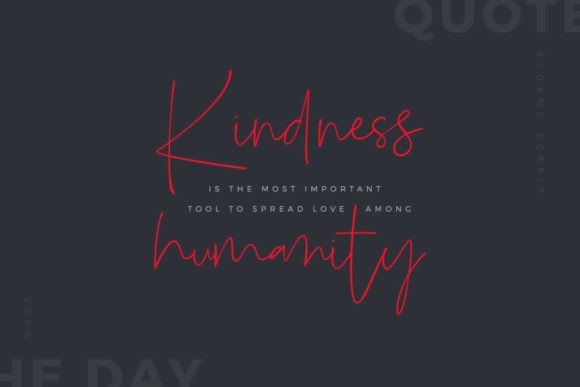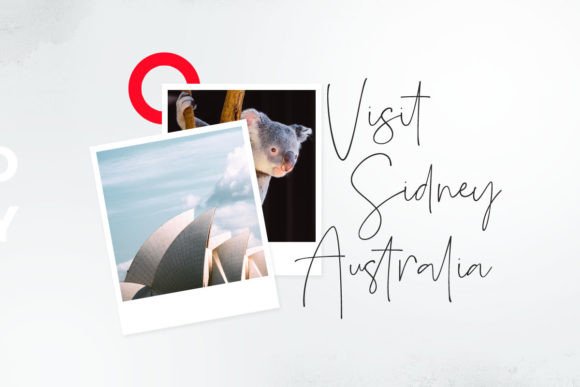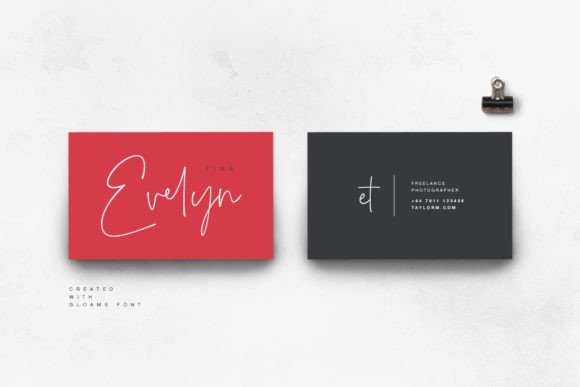
Introduction to Gloams Font
Gloams is a modern and feminine script font.
Every single letter has been carefully crafted to make your text look beautiful With a modern script style, this font will be perfect for many different projects such as photography, watermarks, quotes, blog headers, posters, weddings, branding, logos, fashion, apparel, letters, invitations, stationery, etc.